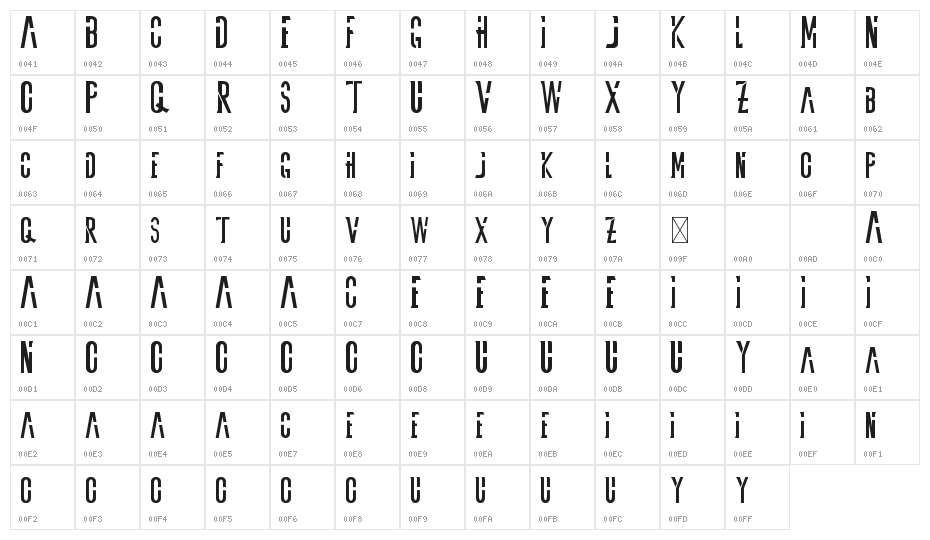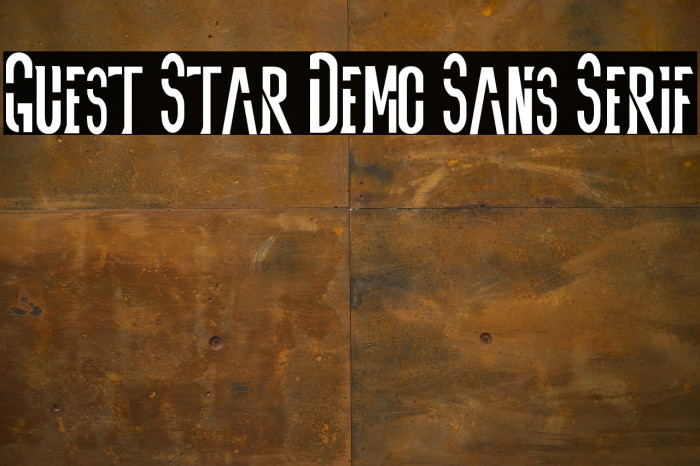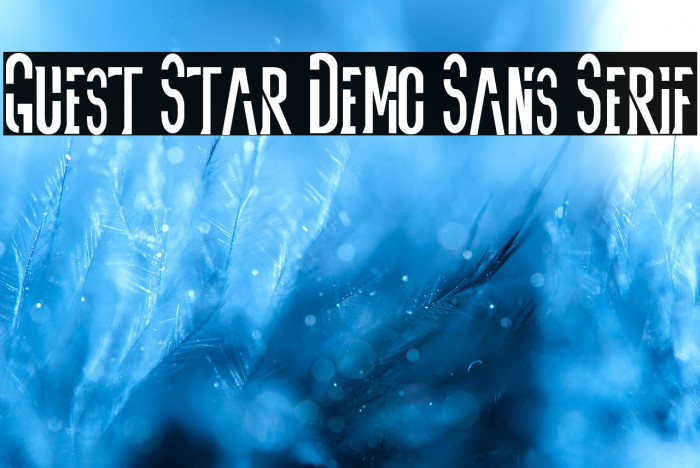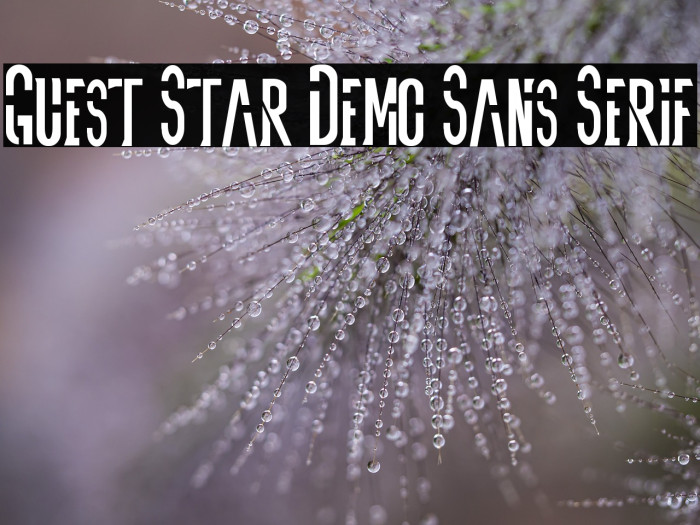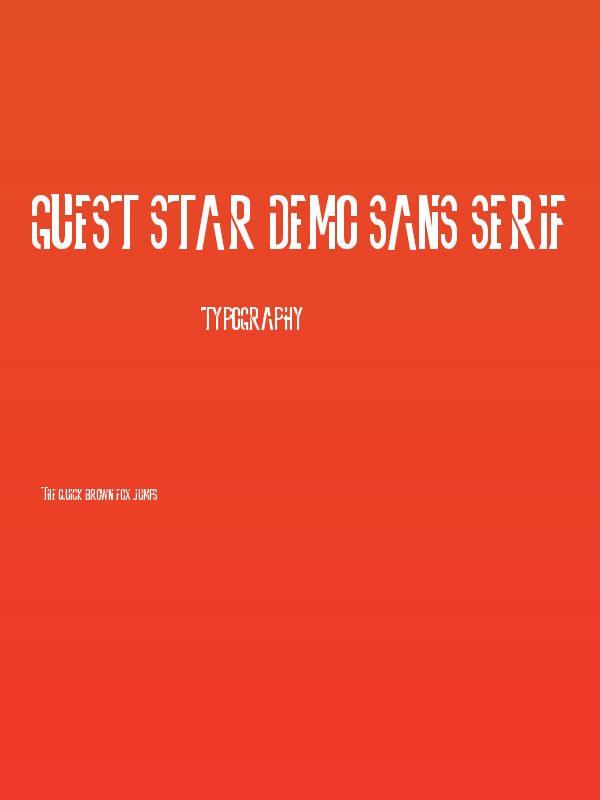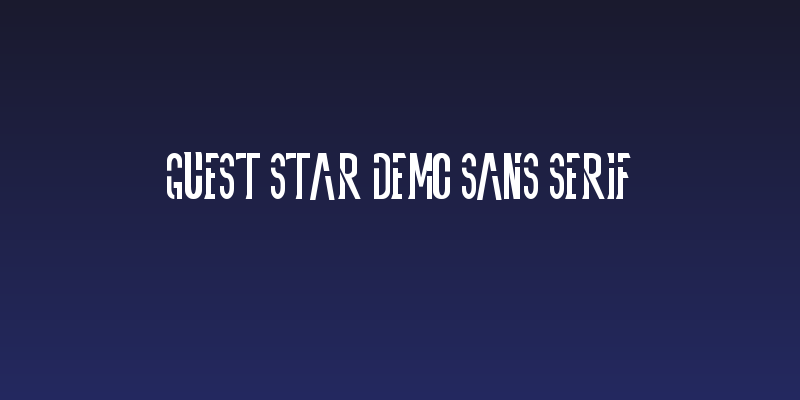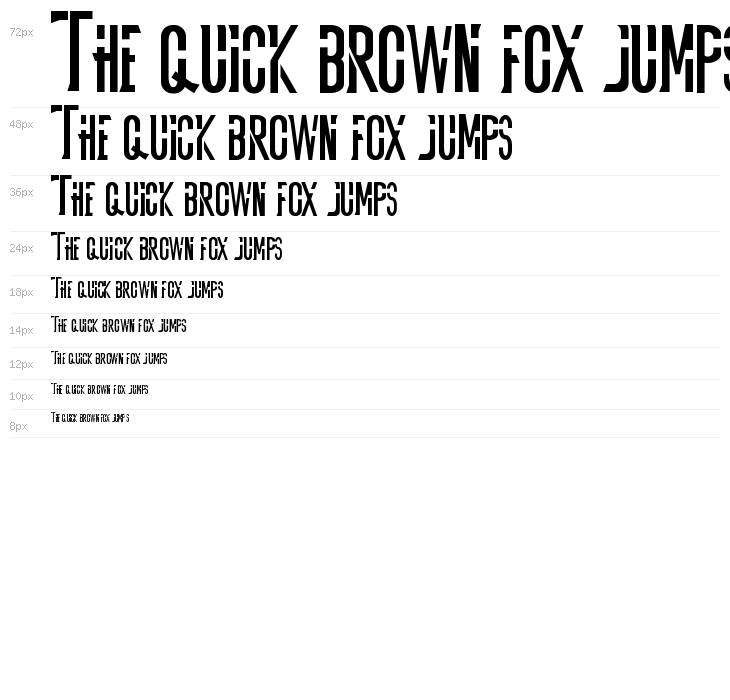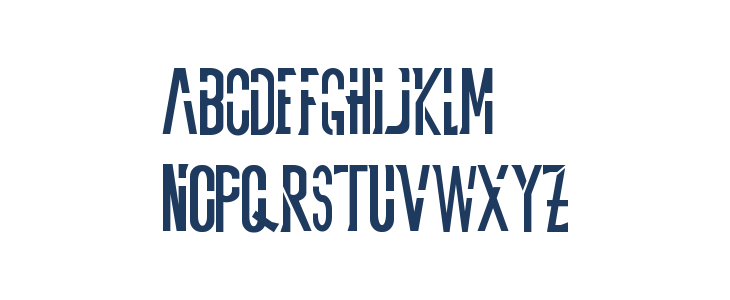
Guest Star Demo Sans Serif Font
Guest Star Demo Sans Serif Description
This font features a bold and striking design with a modern flair. The characters are tall and narrow, giving them a condensed appearance that is both sleek and stylish. The uppercase letters are particularly elongated, creating a sense of height and elegance. The strokes are consistent in thickness, providing a uniform look across all characters. This font's unique style makes it suitable for eye-catching headlines and titles. Its geometric structure and sharp angles contribute to a contemporary aesthetic, making it ideal for modern design projects.
| Proposed Projects | Ideal for use in headlines, posters, branding, and any project requiring a modern, impactful look. |